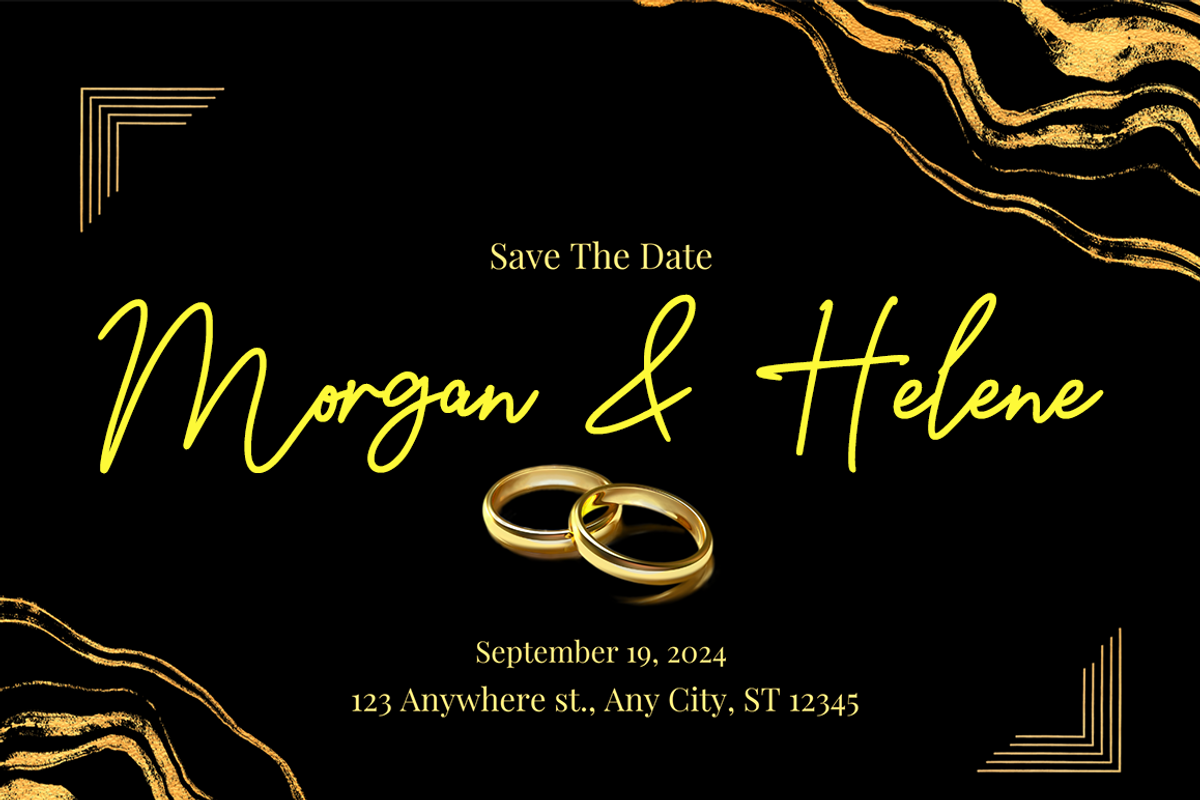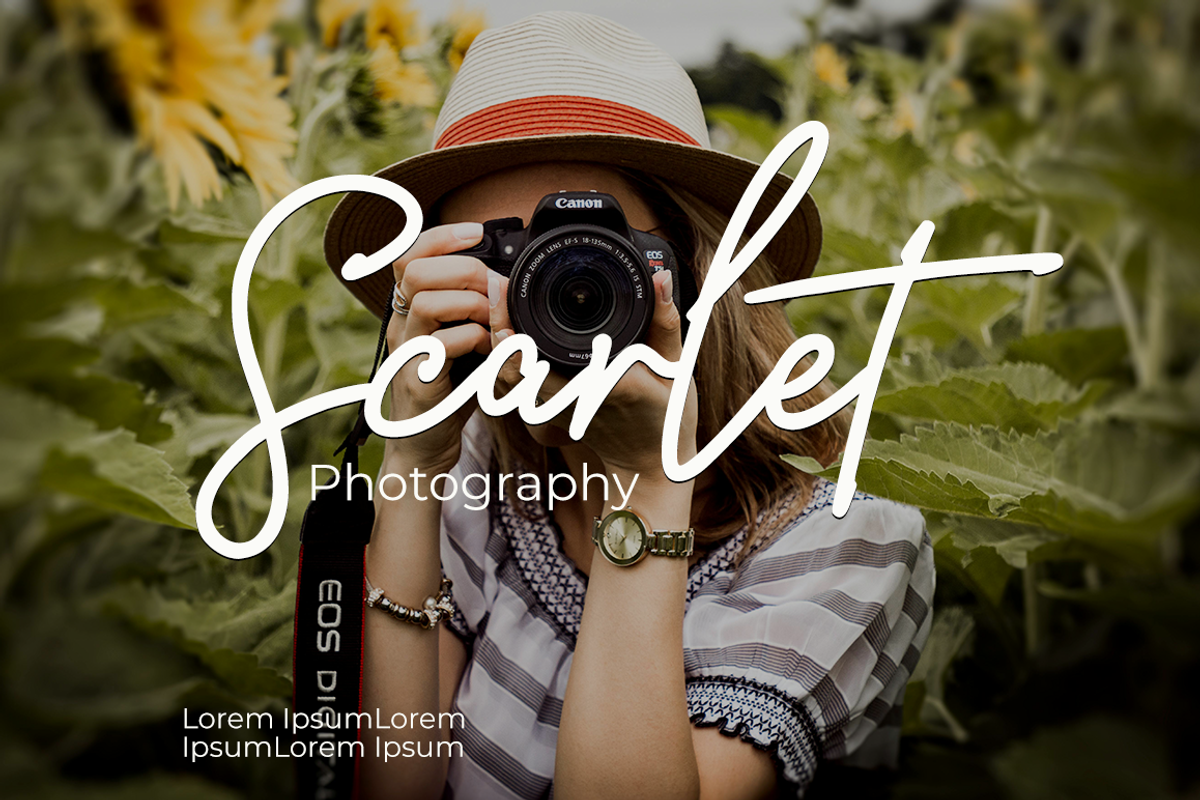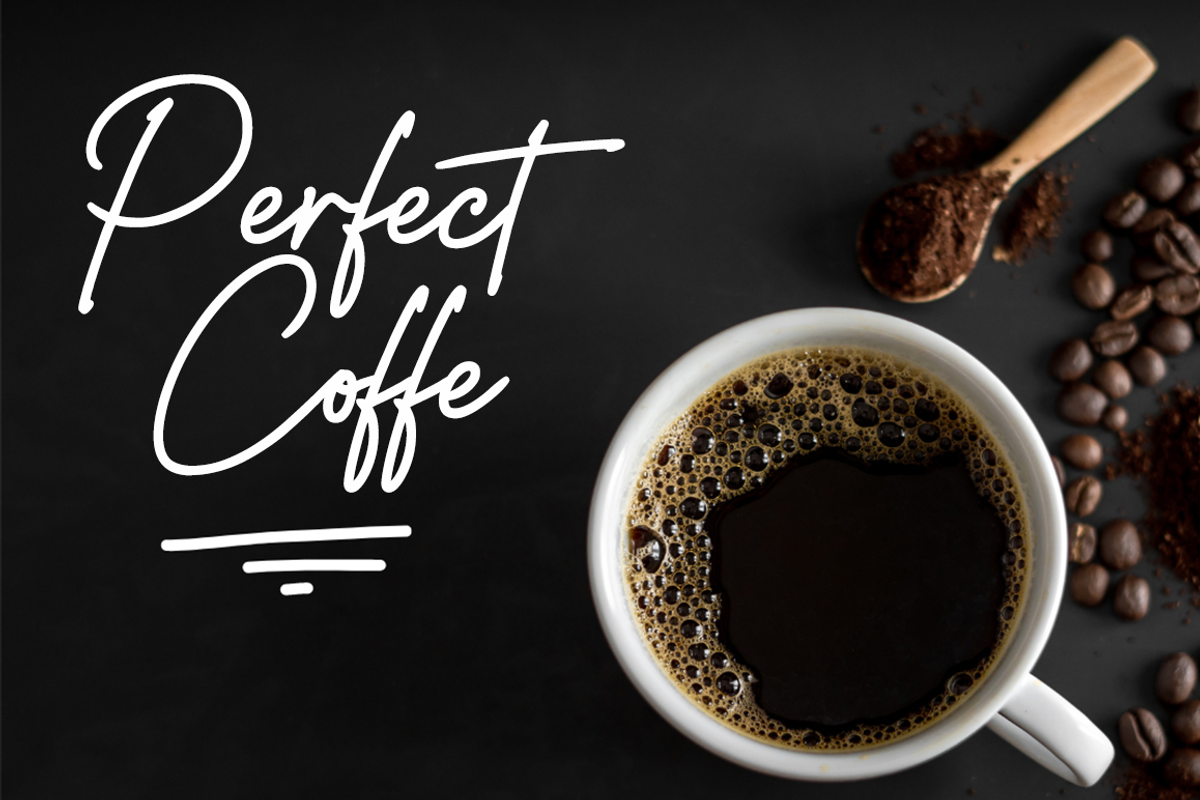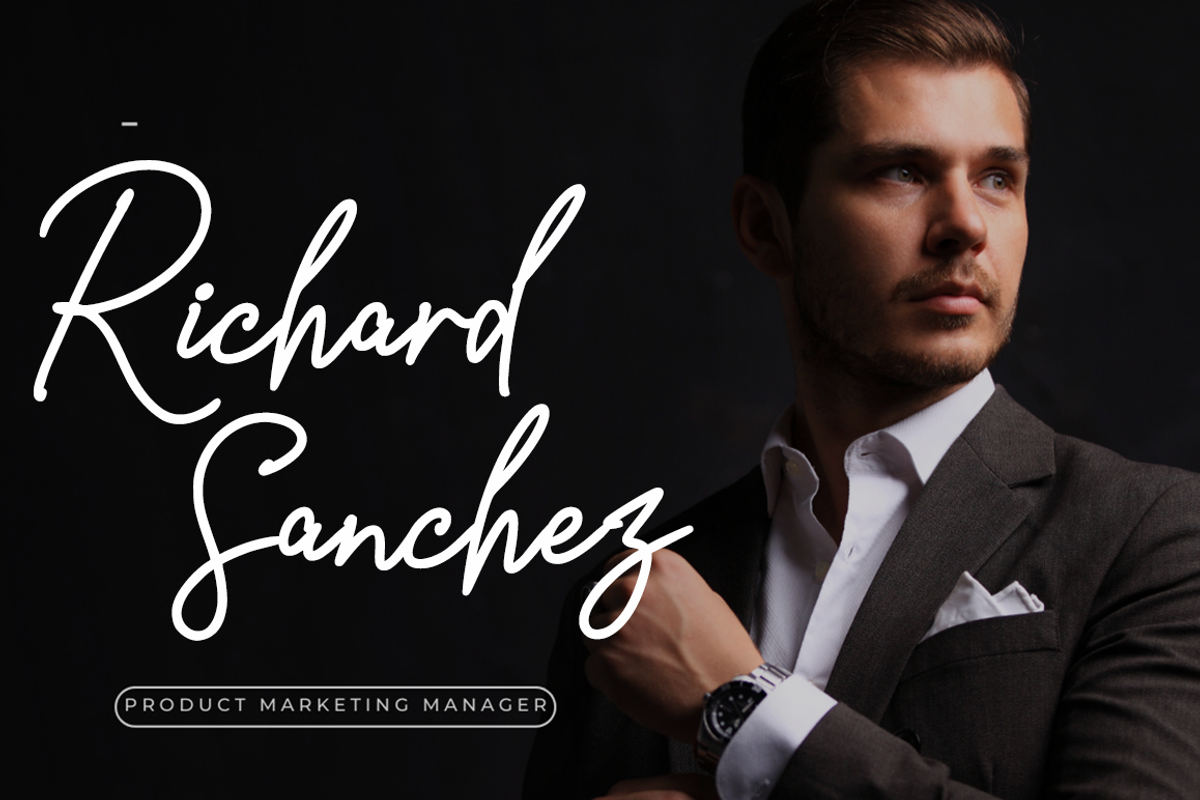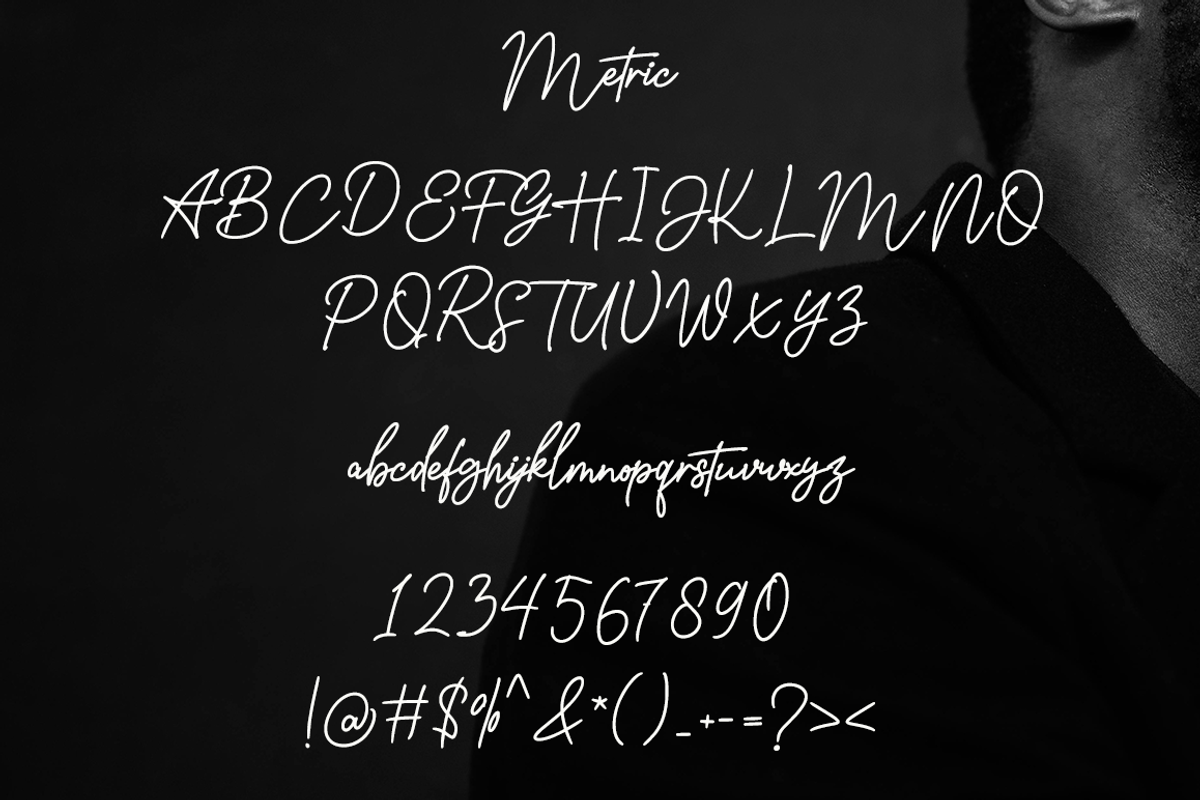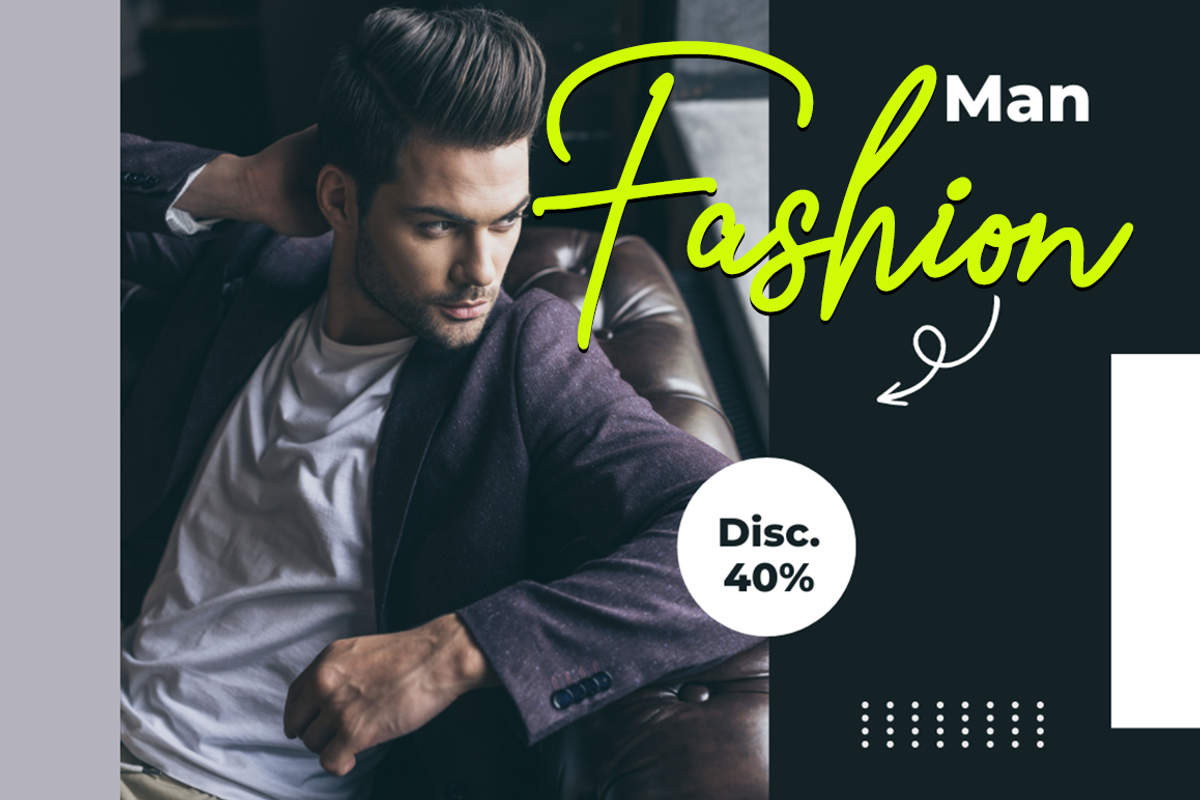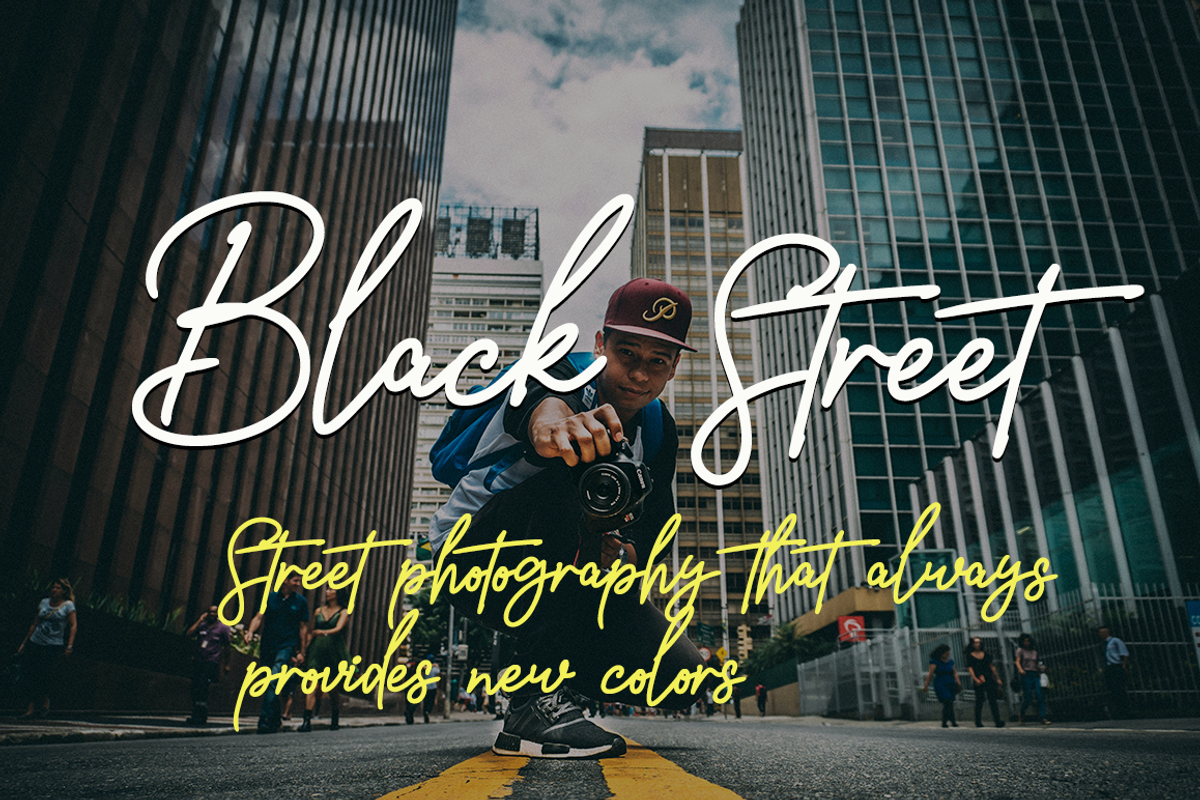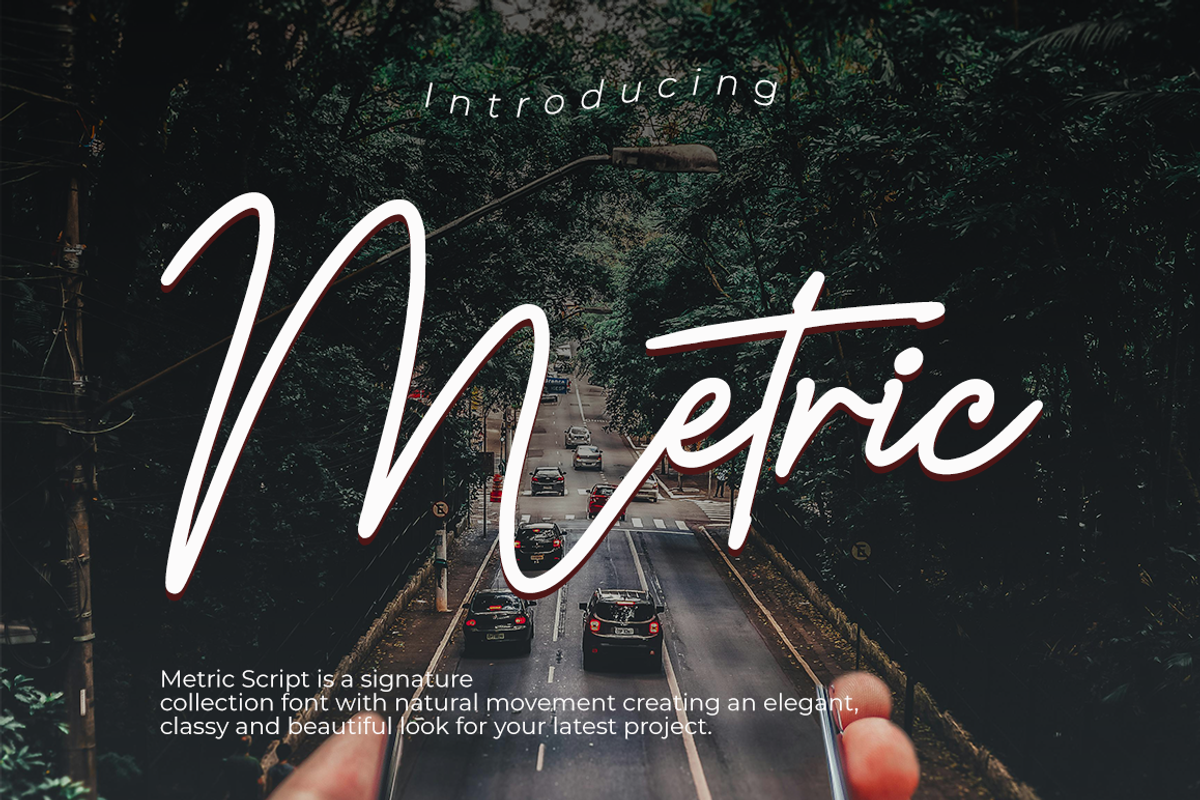
Matric
Metric Script is a signature collection font with natural movement creating an elegant, classy and beautiful look for your latest project.
Metric Script is perfect for branding projects, logos, wedding designs, social media posts, advertising, product packaging, product design, labels, photography, watermarks, invitations, stationery and any project that requires a handwritten feel.